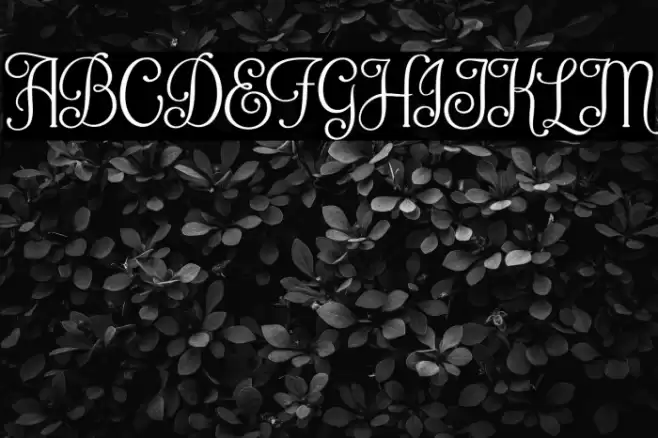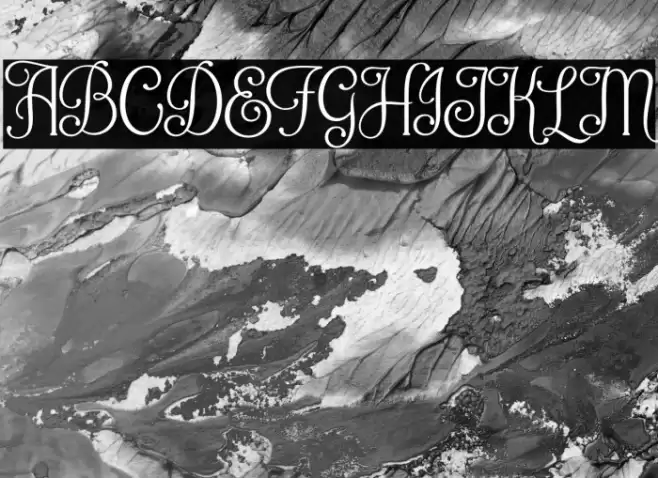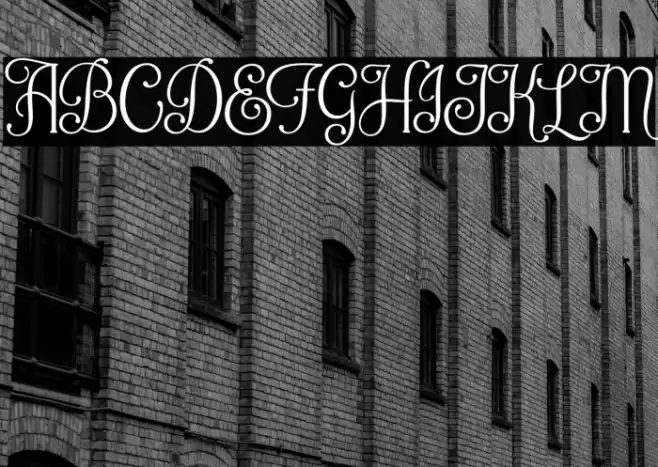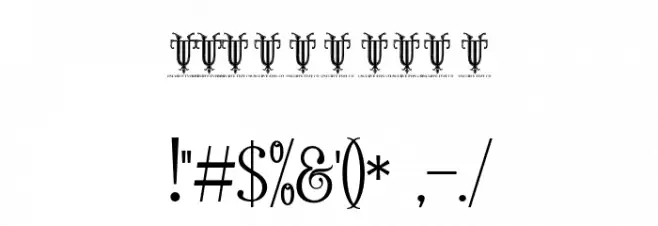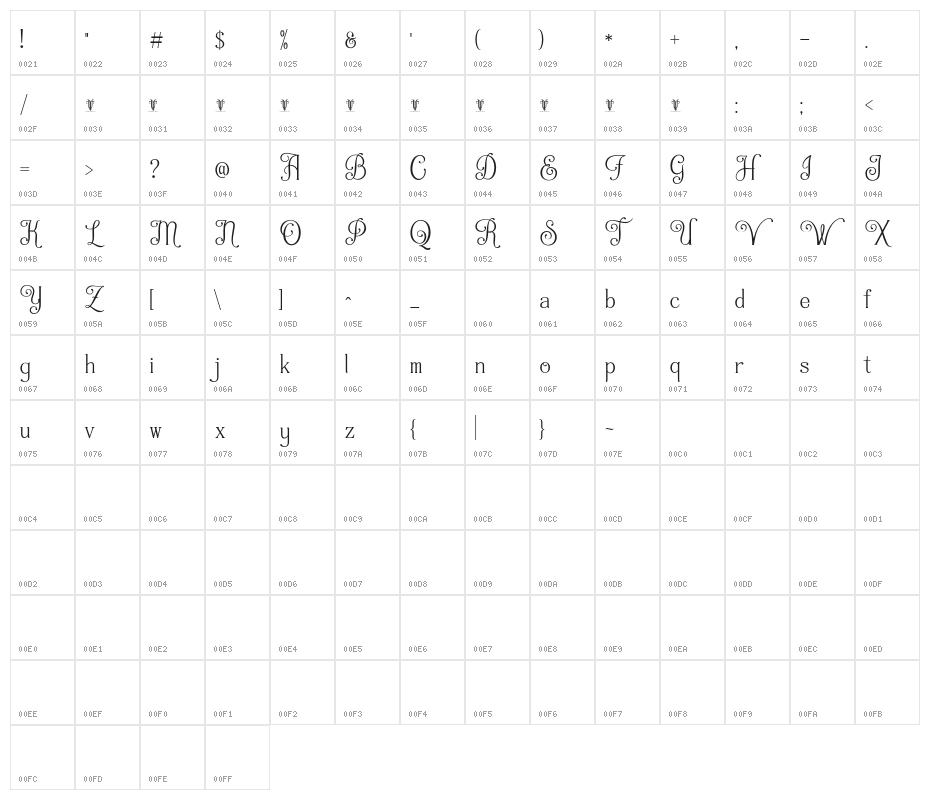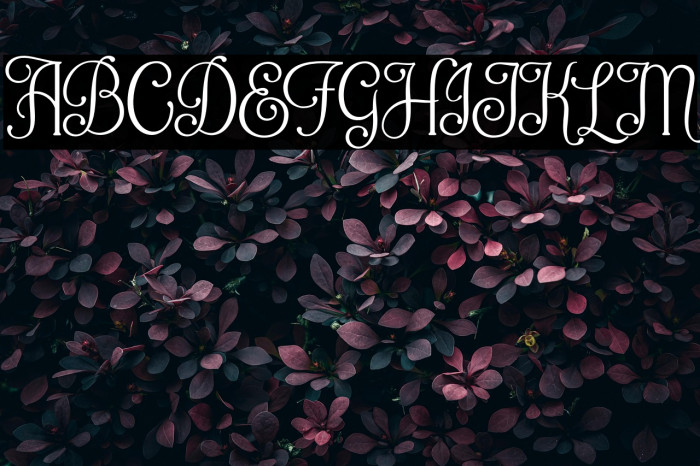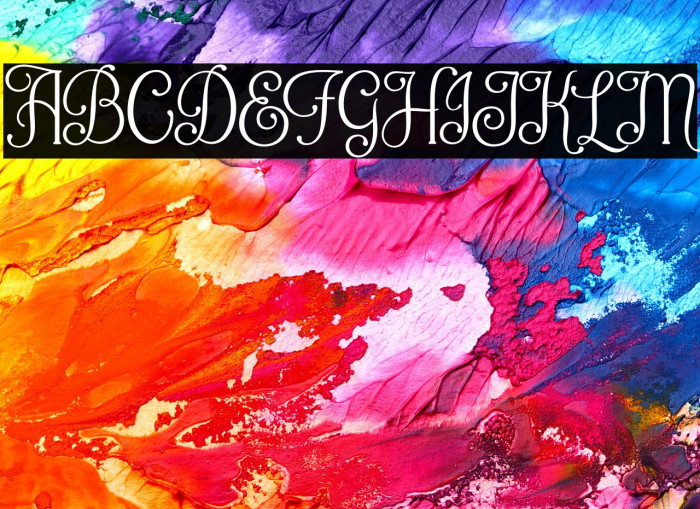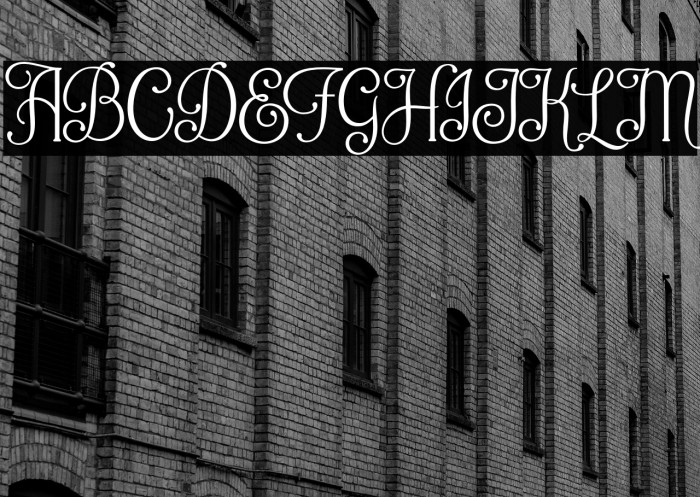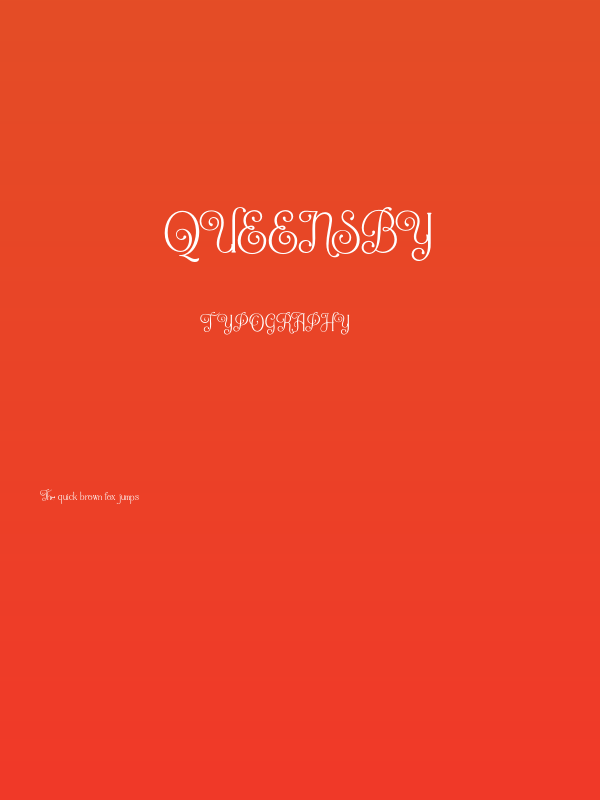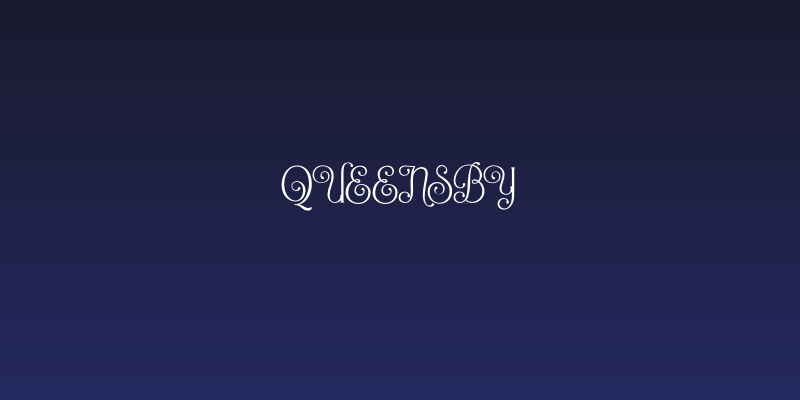
Queensby Font
Queensby Description
This font features a unique blend of elegance and playfulness, characterized by its decorative swirls and curls in the uppercase letters. The lowercase letters maintain a more straightforward, yet stylish appearance, offering a nice contrast to the ornate capitals. The numerals and special characters are designed with a similar flair, ensuring consistency throughout. This font is ideal for projects that require a touch of sophistication and creativity, such as invitations, branding, or artistic designs. Its distinct style makes it stand out, while still being legible and versatile.
An elegant and playful decorative font with ornate uppercase letters and stylish lowercase characters from Uncategorized fonts.
- Font: Queensby
- Proposed Projects: Ideal for invitations, branding, artistic designs, and any project needing a sophisticated touch.
- Use Case: Headlines, Logos, Artistic designs